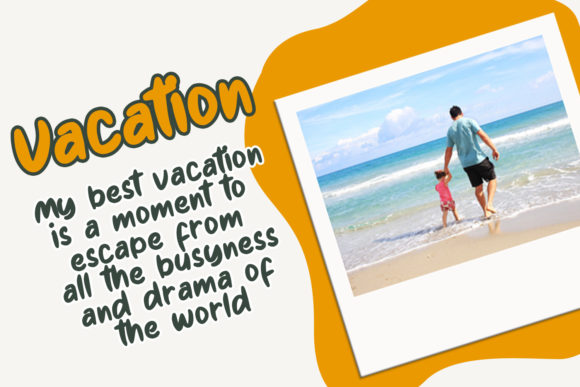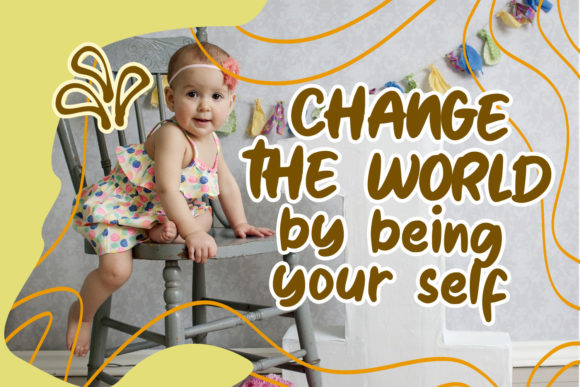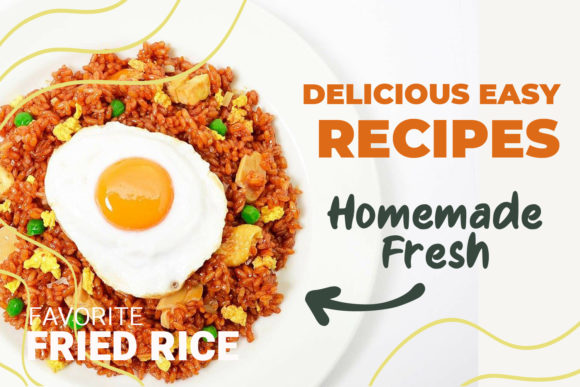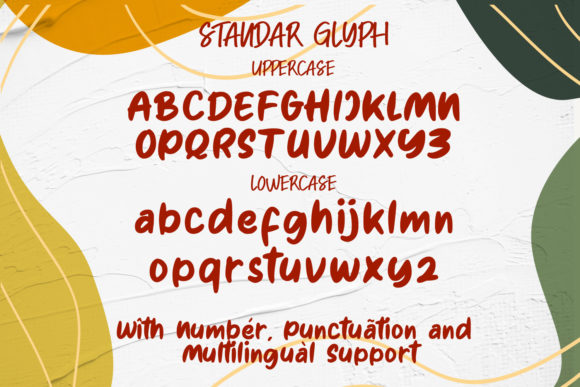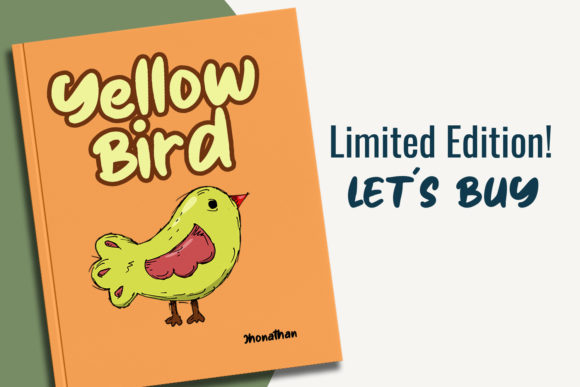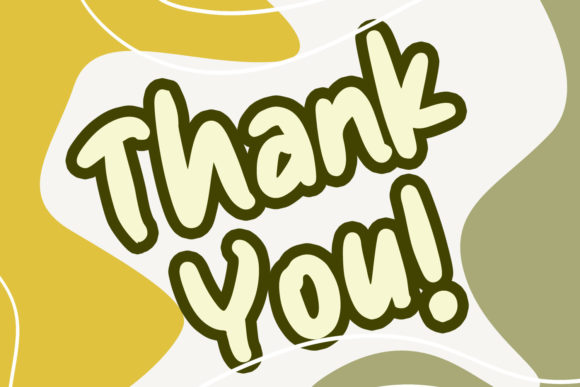
Have you ever stared at a blank page, feeling like the perfect font is just out of reach? You know, that moment when the words just aren’t flowing, and you’re desperate for something to spark your creativity? That’s where the magic of a well-chosen font comes in. For designers, finding the right font can be the difference between a good project and a great one.
Enter Banana Font, a charming, paint-brushed display font that’s perfect for adding a touch of whimsy to your designs. This versatile font is designed to enhance any creation, whether you’re working on a playful children’s book, a trendy food blog, or a relaxed lifestyle brand. With Banana Font, you’ll find that your designs come alive with a sense of personality and charm.
As a valuable addition to your font library, Banana Font is sure to become a go-to choice for designers looking to add a little extra flair to their work. Whether you’re a seasoned pro or just starting out, this font is sure to inspire your creativity and help you take your designs to the next level.
Banana Font Key Features
- Font Style: Banana Font is a fun, cursive script font with a playful, whimsical feel.
- Character Set: The font includes a wide range of characters, including uppercase and lowercase letters, numbers, and punctuation marks.
- Unique Characteristics: The font features a distinctive, wavy design with a subtle texture that gives it a natural, handwritten feel.
Designer Review: Banana Font
At first glance, the Banana Font is a quirky and fun addition to any design project. ✨ The font’s playful, cursive script is sure to add a touch of whimsy and personality to your work. It’s perfect for creating eye-catching headings, titles, or even entire brand identities.
One of the standout features of the Banana Font is its versatility. ✨ It’s suitable for both digital and print projects, making it a great all-around choice. Additionally, the font’s bold and expressive lines lend themselves well to hand-drawn or hand-painted styles, adding an extra layer of depth and character.
- ⚠️ Limited legibility in small font sizes or at high zoom levels
- ⚠️ May not be suitable for formal or professional applications due to its playful nature
- ⚠️ Limited character set and language support
Overall, the Banana Font is a fun and creative addition to any designer’s toolkit. While it may have some limitations, its unique personality and versatility make it a great choice for projects where you want to add a touch of whimsy and personality.
Some tips for getting the most out of Banana Font include:
- Using it for playful and creative projects.
- Pairing it with bright and bold colors.
- Using it for social media graphics and advertisements.
Common use cases for Banana Font include:
- Social media graphics and advertisements.
- Playful and creative projects.
- Children’s books and educational materials.